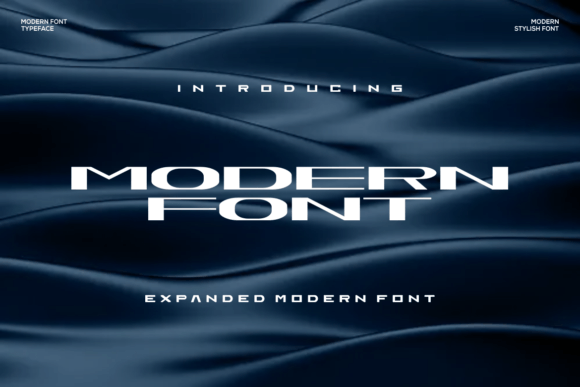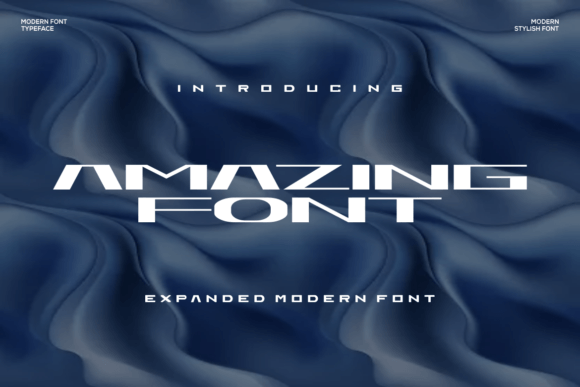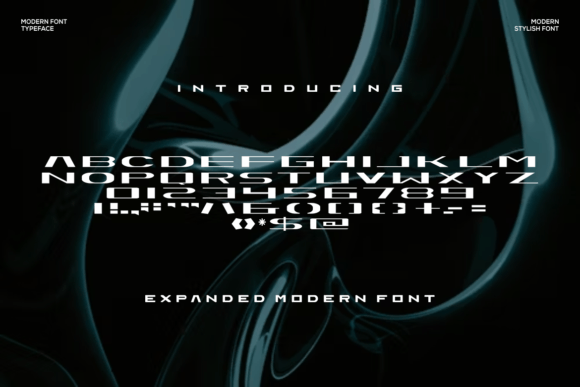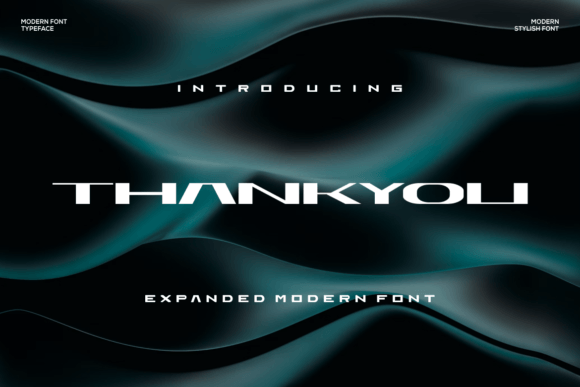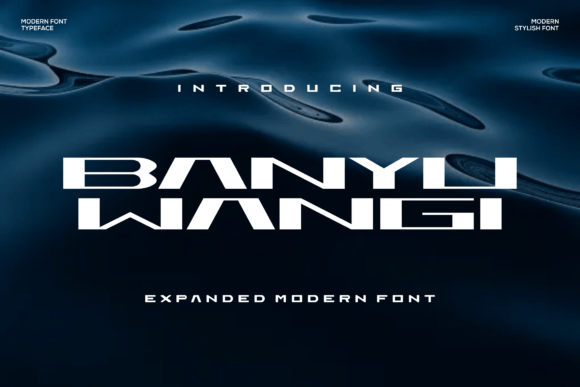
Introducing Banyu Wangi Font: The Modern Display Font for Creative Projects
In the world of design, a font can make all the difference in creating a lasting impression. For designers and crafters looking for a bold and authentic display font, we are excited to present Banyu Wangi Font. This modern font is perfect for a variety of branding projects, including logos, t-shirt printing, creative products, and more. In this article, we’ll explore the features and benefits of Banyu Wangi Font and why it’s a must-have for your design arsenal.
What is Banyu Wangi Font?
Banyu Wangi Font is a bold and authentic display font designed to make a statement. Its modern and sleek design makes it perfect for a wide range of applications, from branding and advertising to packaging and merchandise. The font’s unique style is characterized by its clean lines, elegant curves, and distinctive letterforms, making it stand out from other fonts in its category.
Key Features of Banyu Wangi Font
So, what makes Banyu Wangi Font so special? Here are some of its key features:
• Bold and Authentic: Banyu Wangi Font is designed to be bold and authentic, making it perfect for headlines, titles, and other display text.
• Modern Design: The font’s modern design ensures that it looks fresh and contemporary, making it ideal for brands that want to appear modern and trendy.
• Versatile: Banyu Wangi Font is versatile and can be used in a variety of contexts, from logos and branding to t-shirt printing and creative products.
• Elegant Curves: The font’s elegant curves and clean lines make it perfect for designs that require a touch of sophistication.
Benefits of Using Banyu Wangi Font
So, why should you choose Banyu Wangi Font for your design projects? Here are some benefits of using this amazing font:
• Stand Out from the Crowd: With Banyu Wangi Font, you can create designs that stand out from the crowd and grab attention.
• Professional Look: The font’s modern and sleek design gives your designs a professional look that’s perfect for branding and advertising.
• Easy to Read: Despite its bold design, Banyu Wangi Font is easy to read, making it perfect for headlines and titles.
• Customizable: The font is highly customizable, allowing you to adjust its size, color, and style to fit your design needs.
How to Use Banyu Wangi Font
Using Banyu Wangi Font is easy. Here are some tips on how to get the most out of this amazing font:
• Logos and Branding: Use Banyu Wangi Font to create bold and memorable logos that make a lasting impression.
• T-Shirt Printing: The font’s bold design makes it perfect for t-shirt printing and other merchandise.
• Creative Products: Use Banyu Wangi Font to create eye-catching designs for creative products, such as posters, flyers, and brochures.
• Advertising: The font’s modern design makes it perfect for advertising and marketing materials, such as billboards and magazine ads.
In conclusion, Banyu Wangi Font is a modern display font that’s perfect for designers and crafters looking for a bold and authentic font for their design projects. Its unique style, versatility, and ease of use make it a must-have for any design arsenal. Whether you’re creating logos, t-shirt printing, or creative products, Banyu Wangi Font is sure to make a lasting impression.